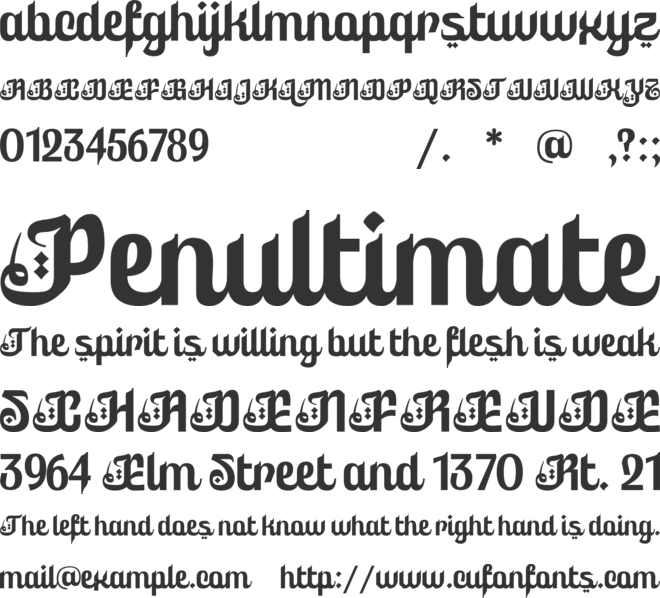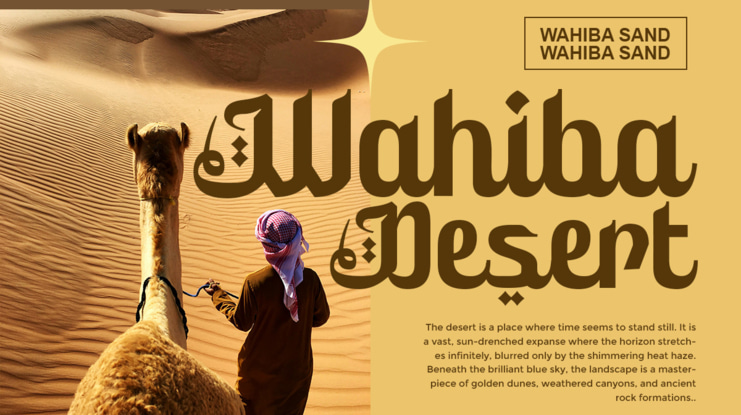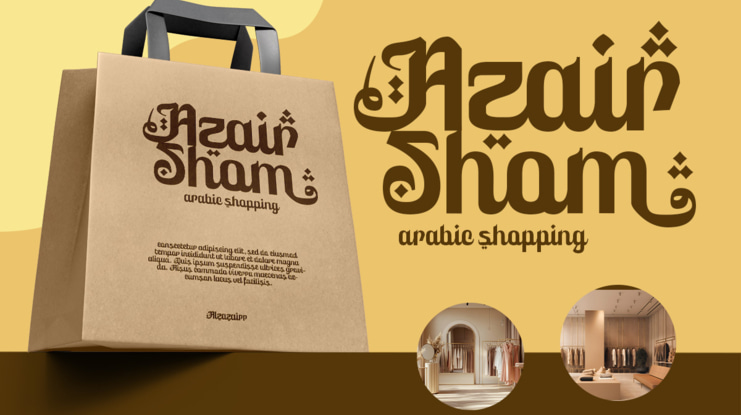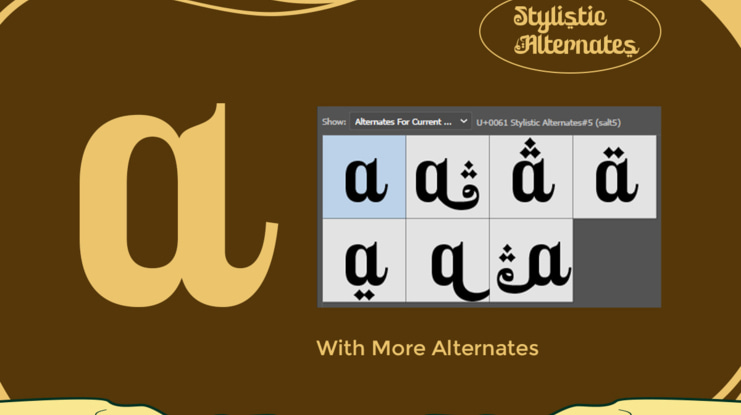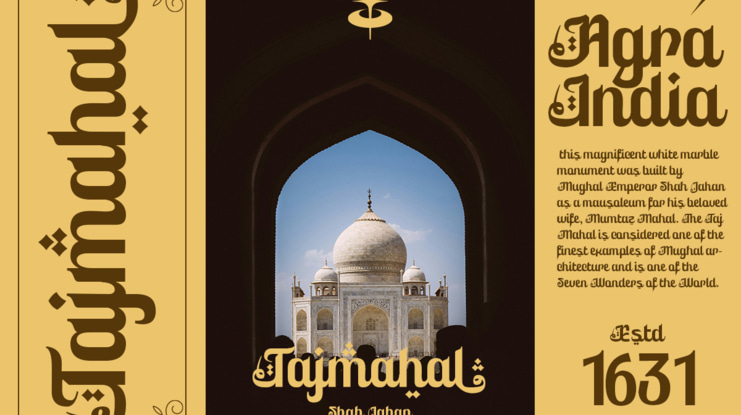
Ruhia Arabic - Arabic Style Display Typeface
Ruhia Arabic is a distinctive Arabic-style typeface that blends the beauty of Middle Eastern calligraphic influence with modern display typography. Designed to capture an authentic Arabic visual character while remaining highly readable in Latin-based layouts, this typeface is perfect for projects seeking an exotic, cultural, or elegant Islamic-inspired aesthetic.